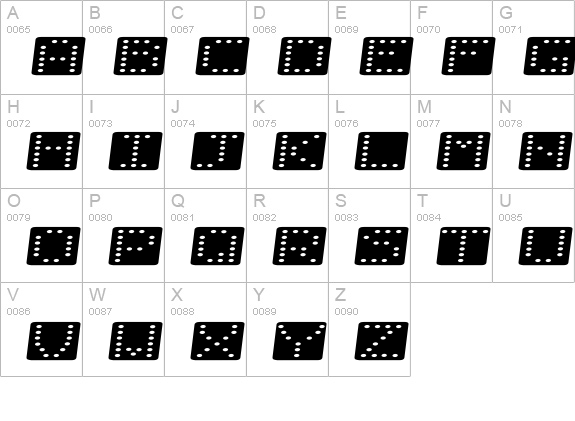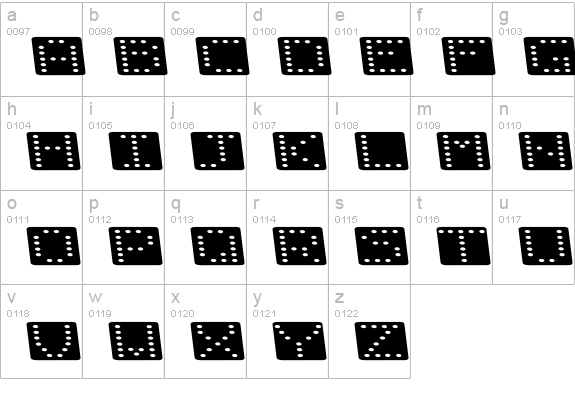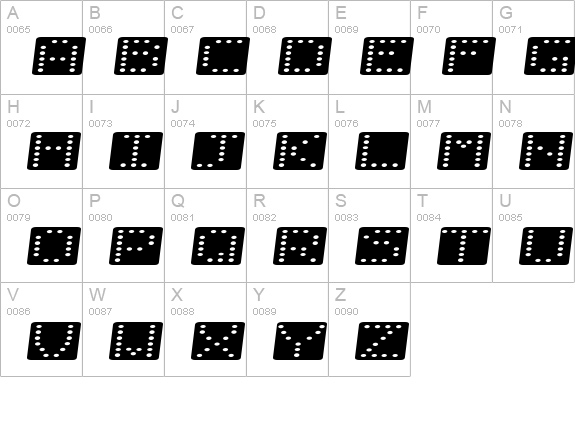
The Domino flad kursiv font is a stylish and modern typeface that exudes sophistication and elegance. Its sleek design and unique flair make it perfect for a wide range of design projects, from branding to packaging to invitations. The font features a subtle italicized style that adds a touch of flair and personality to any text it graces. Best of all, the Domino flad kursiv font is available for free download at FontsMarket.com. This means you can easily access this stunning font and incorporate it into your design projects without breaking the bank. Whether you're a professional designer or a DIY enthusiast, this font is sure to elevate your creations and make them stand out from the crowd. Download the Domino flad kursiv font today and add a touch of elegance and style to your designs!